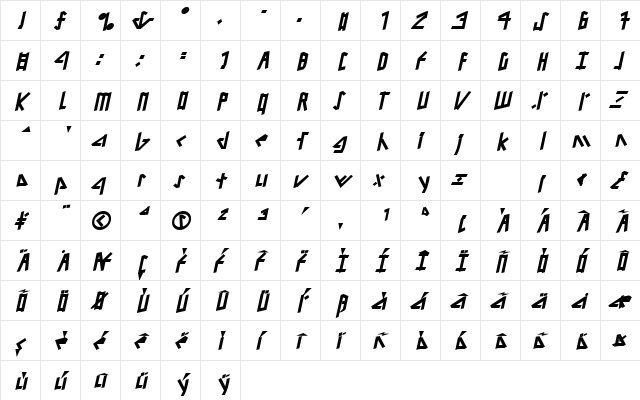
LoblowSSK BoldItalic
Design Context for LoblowSSK Typeface
LoblowSSK is a composed and adaptable typeface that performs quietly and consistently across a wide range of design contexts. Its italic angle brings a sense of urgency and motion to the letterforms. Its bold stroke weight gives it real presence on the page.
Pro Tip: Use LoblowSSK for emphasis, pull quotes, and subheadings where its slanted energy can add rhythm to the layout.